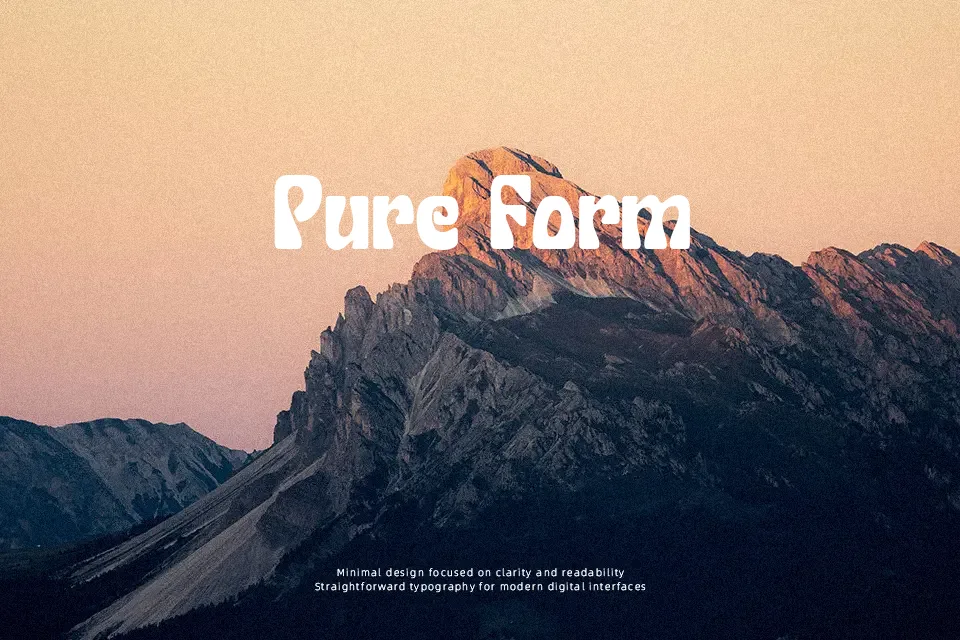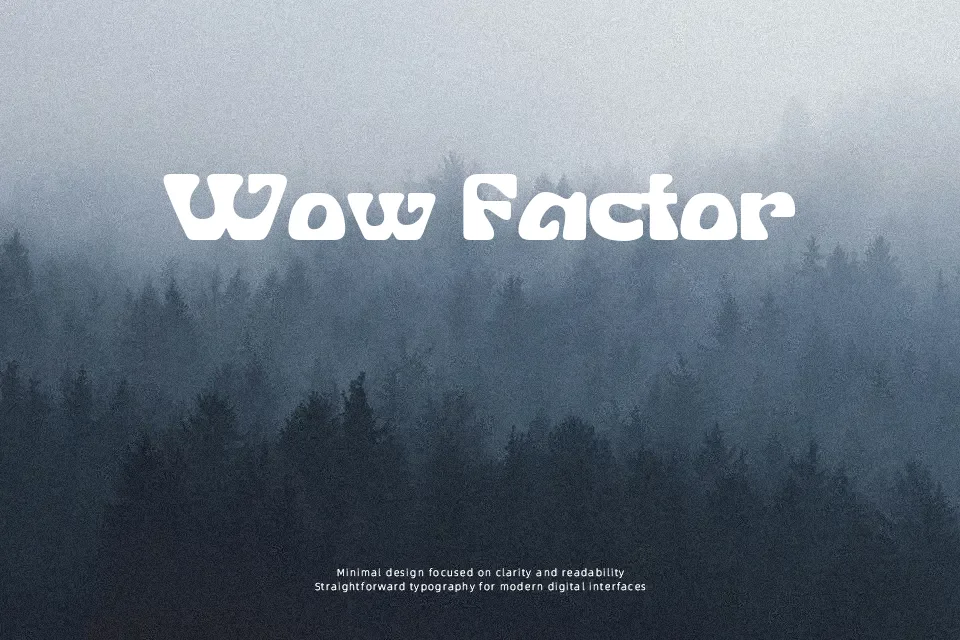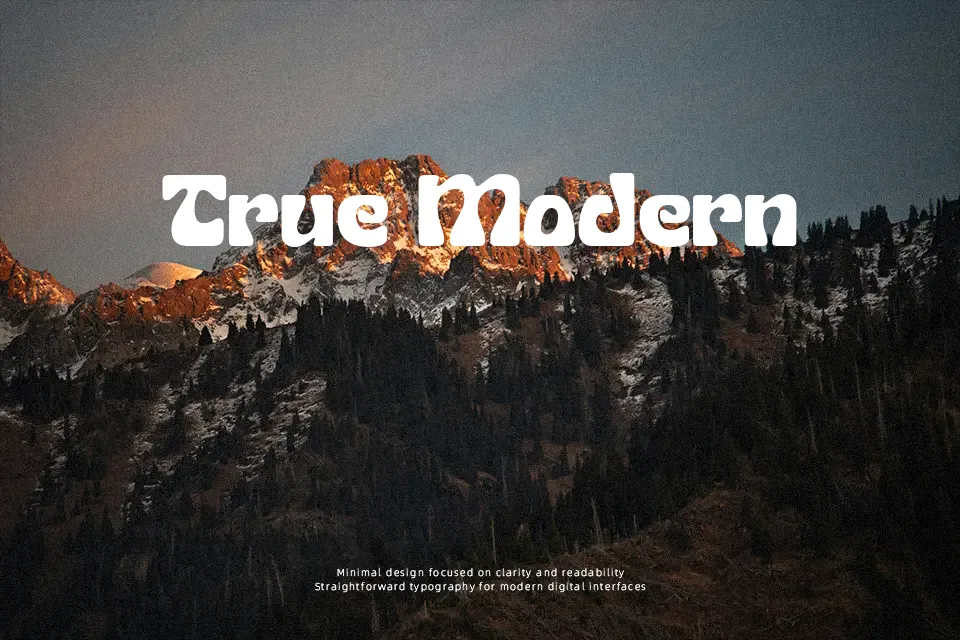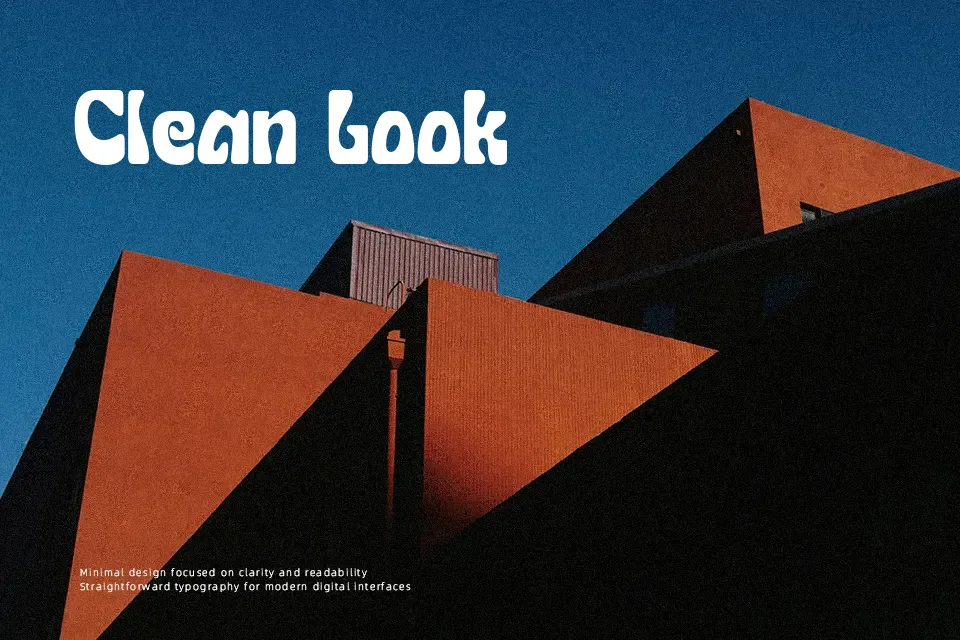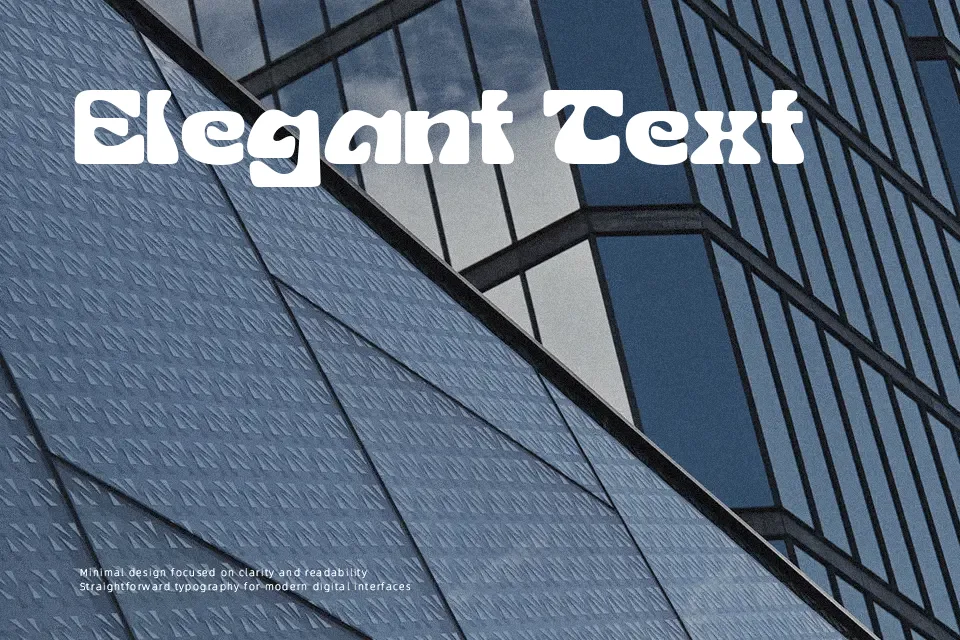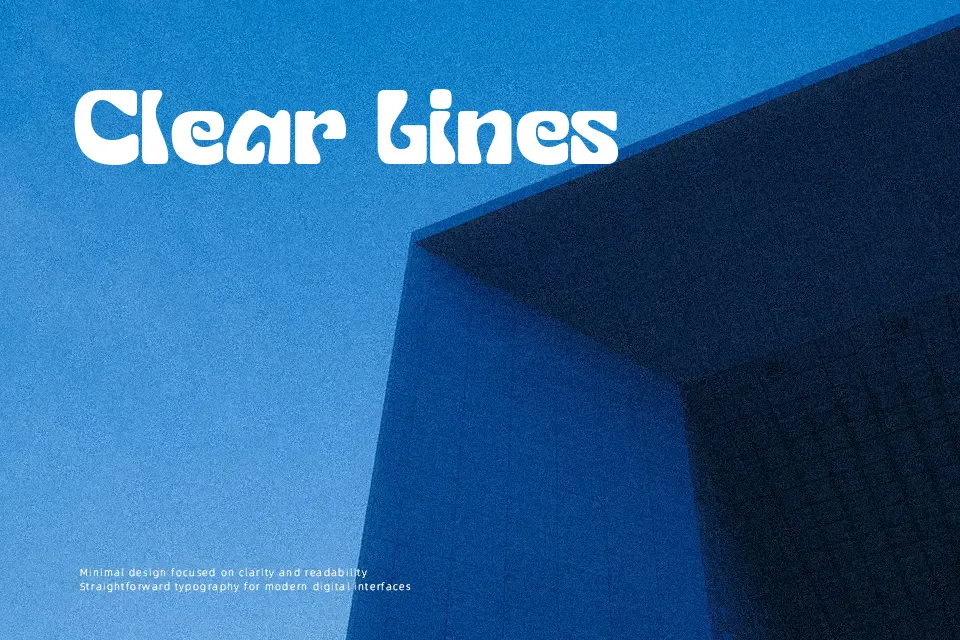
SG Display Font
Designed by Studio Gulden
SG Display Font presents an expressive display design defined by thick stroke weights, bulbous terminals, and dynamic retro curves. The letterforms feature tight character spacing and low stroke contrast, creating an organic visual rhythm across large headlines. Proportions remain deliberately exaggerated to emphasize decorative flair in short titles, branding concepts, and festival flyers. However, the heavy strokes and tight counter spaces make the typeface poorly suited for dense body text or small interface elements, where letter distinction quickly degrades. In practical review, the font delivers exceptional personality when used sparingly in prominent display positions.
Best For: psychedelic music posters, retro apparel graphics, creative merchandise packaging, bold event headlines
Not Ideal For: long paragraph text, mobile interface labels, dense editorial copy, technical documentation
Perfect for headline, logo, and music, with a bold and decorative style.